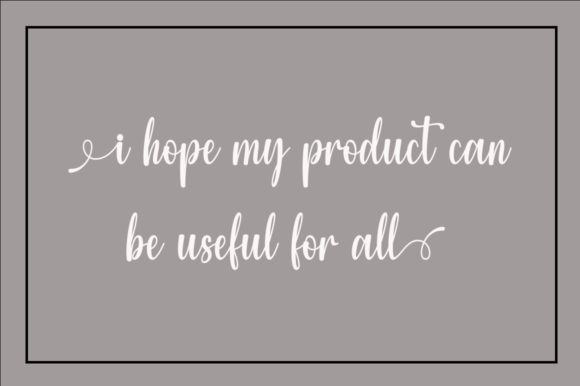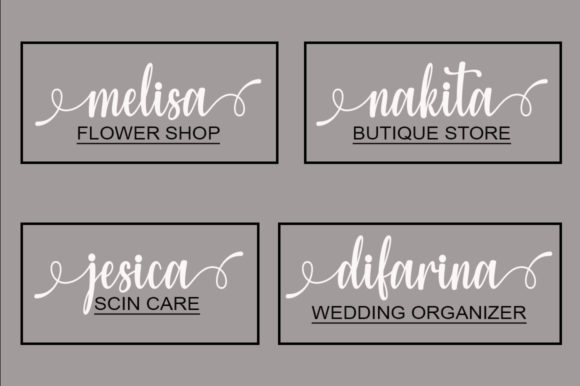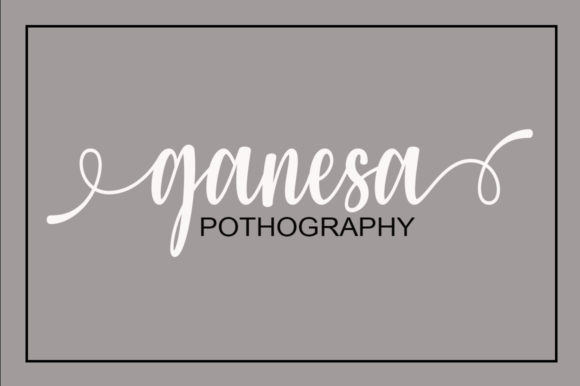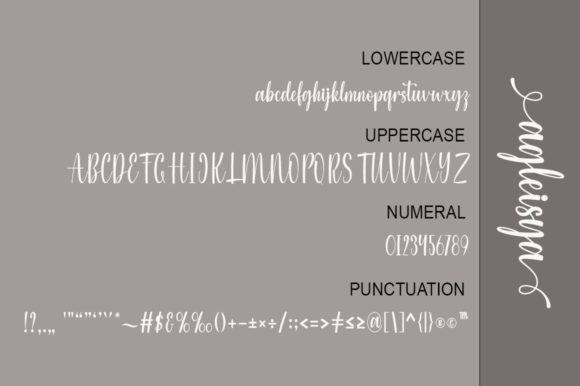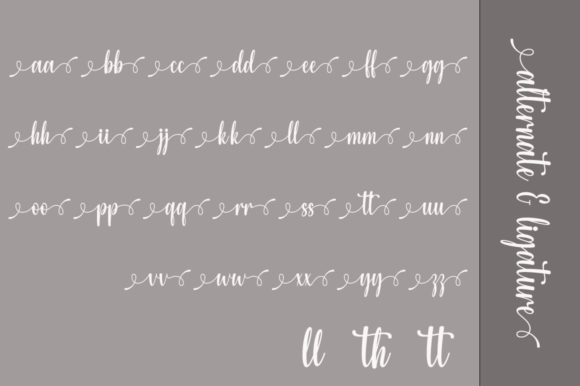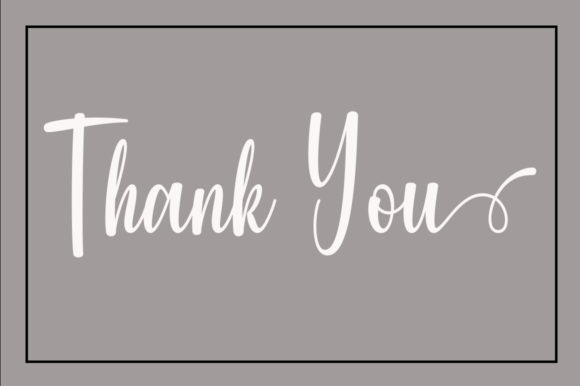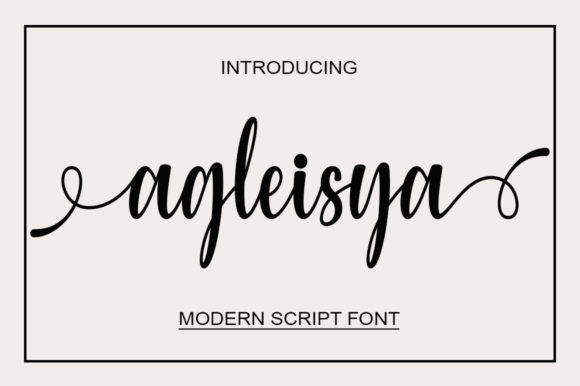
The Agleisya Font: Elevate Your Designs with Elegance and Sophistication
Have you ever been in the midst of working on a design project, and suddenly, you’re stuck on finding the perfect font? I recall a recent experience where I was crafting a luxurious branding package for a high-end client, and my usual go-to fonts just weren’t cutting it. The design needed something that exuded sophistication, elegance, and a touch of chic. That’s when I stumbled upon the Agleisya font, and it completely transformed my project.
An Honest Review of Agleisya Font
Agleisya is a refined script font that embodies the essence of luxury and style. Here’s what I love about it:
- ✨ Sophisticated and elegant: Agleisya’s sleek lines and flowing curves make it perfect for high-end branding, packaging, and editorial designs.
- ✅ Stylish alternates and ligatures: The font comes with a range of alternates and ligatures that allow you to add a personal touch to your designs.
- 🔍 PUA encoded: The font is PUA (Private Use Area) encoded, making it easy to access all the glyphs and swashes.
While Agleisya is an exceptional font, there are a few minor quirks to be aware of:
- 🤔 Limited usage in small sizes: Due to its elegant and cursive nature, Agleisya may not be the best choice for body text or small font sizes.
The Backstory of Agleisya Font
Agleisya was designed by a team of typographers who aimed to create a font that embodies the essence of luxury and sophistication. The font’s name, Agleisya, is derived from the Greek word for “elegance.” The design team drew inspiration from classic calligraphy and modern typography to create a font that is both refined and stylish.
| Font Name | Agleisya Font |
| Author | wahyu studio |
| Q: What is the Agleisya font? | A: Agleisya is a refined script font that embodies the essence of luxury and sophistication. |
| Q: Does Agleisya support OpenType features? | A: Yes, Agleisya supports OpenType features, including alternates, ligatures, and stylistic sets. |
In conclusion, Agleisya is an exceptional font that can elevate your designs to new heights. Its elegant and refined nature makes it perfect for luxury branding, packaging, and editorial designs. With its range of alternates, ligatures, and OpenType features, Agleisya offers endless creative possibilities.